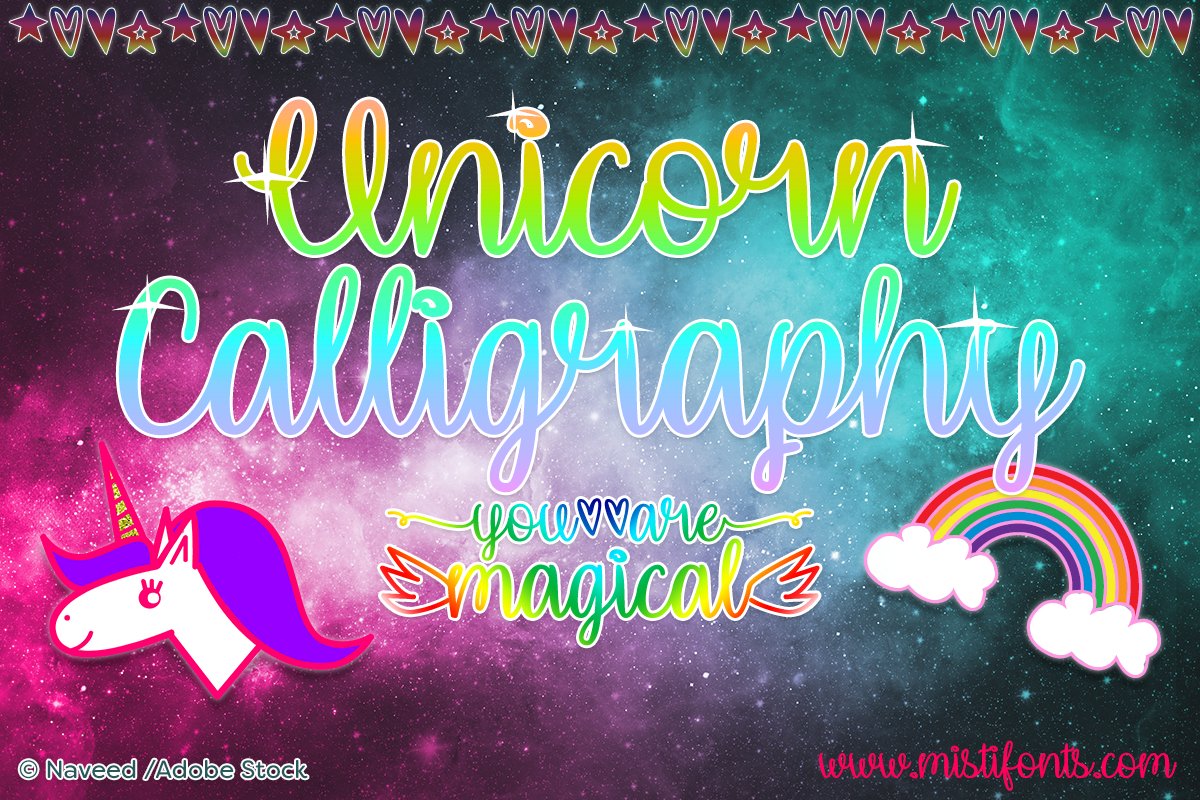
Unicorn Calligraphy
Unicorn Calligraphy is a magical, calligraphy font that is perfect for your design and craft projects!
Special Symbols:
• Type * (asterisk) for the solid star
• Type | (vertical bar) for the rainbow
• Type (backslash) for the sparkle
• Type _ (underscore) for the unicorn
• Type ^ (circumflex) for the solid heart
• Type (greater than) for the open heart
• Type [] (brackets) for the swashes
• Type () (parentheses) for the wings